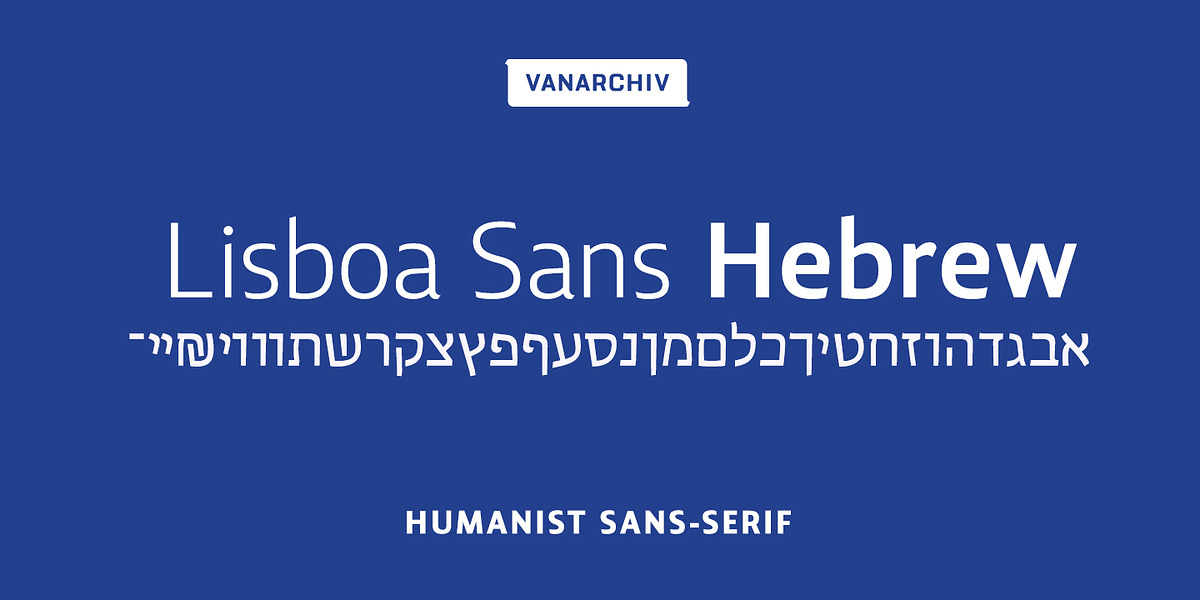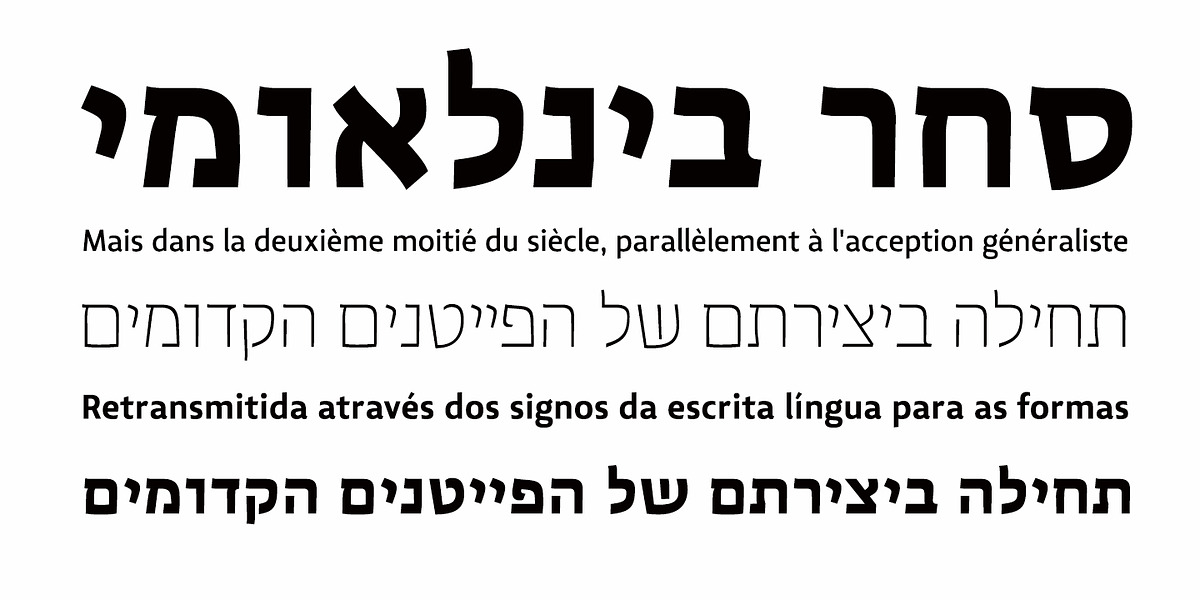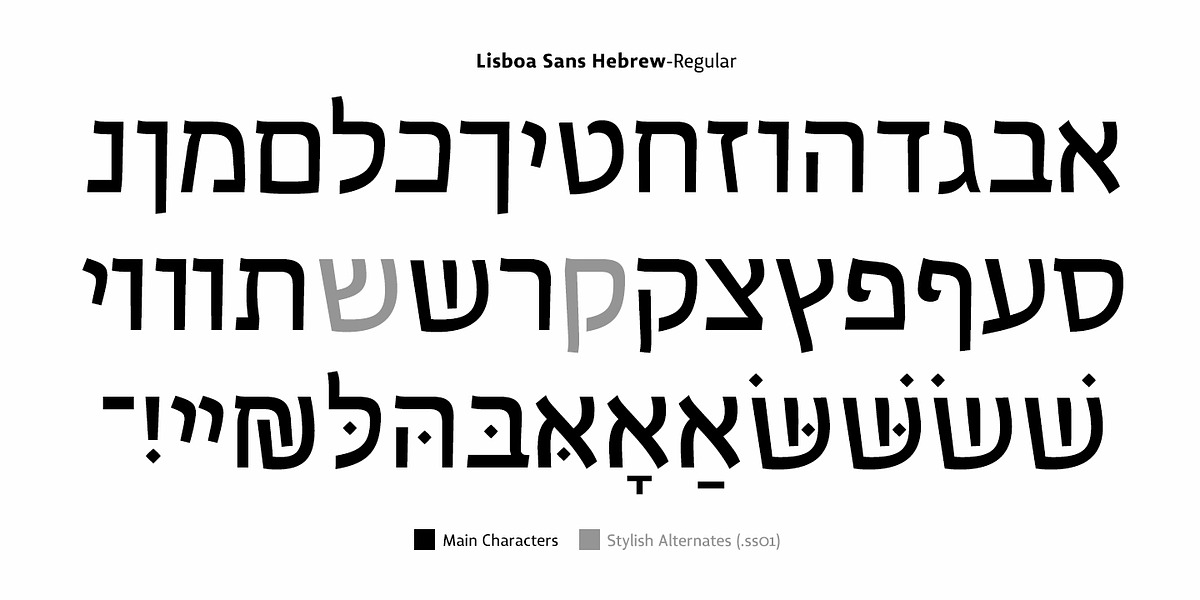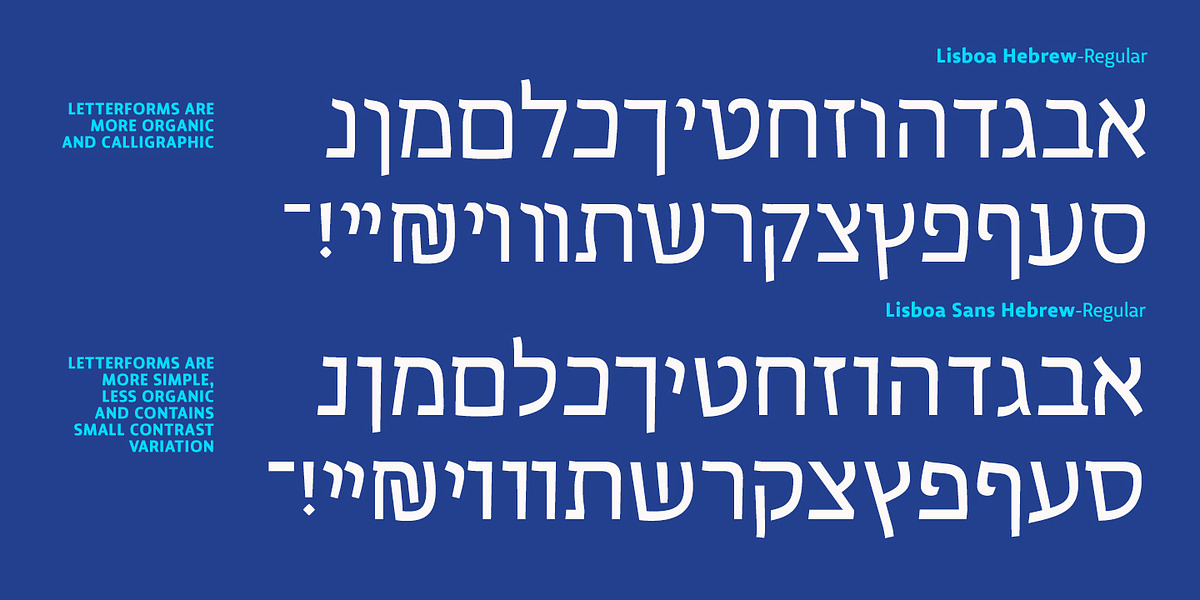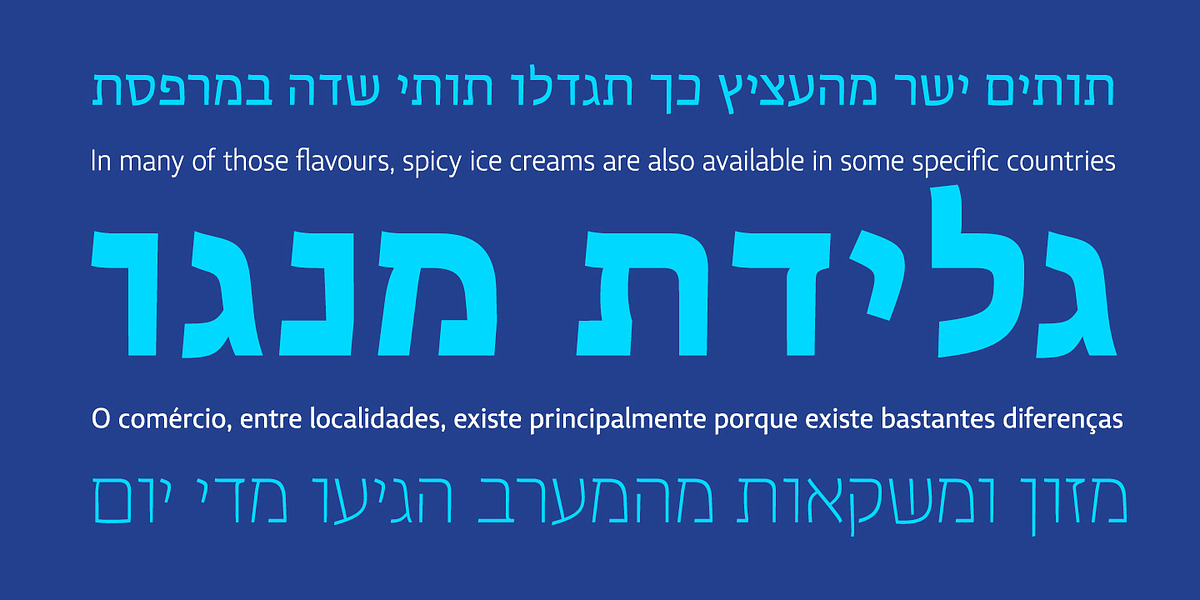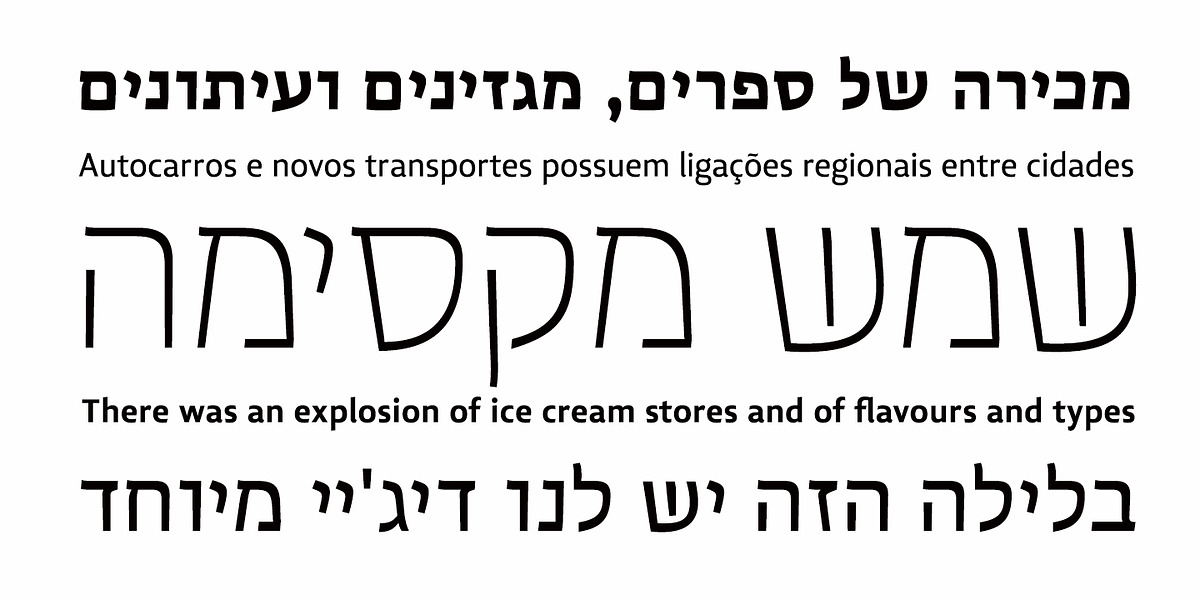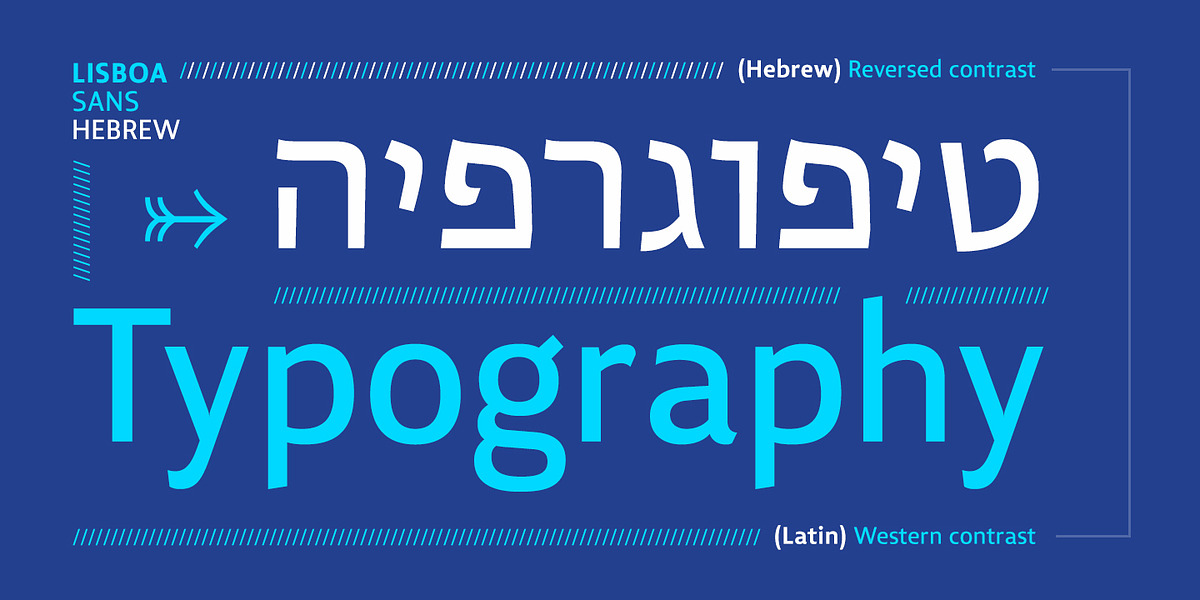
Lisboa Sans Hebrew
Lisboa Sans Hebrew is a humanist sans-serif typeface designed for readability in paragraph text. It features a simple and neutral design approach and includes Latin transliteration characters for added versatility.